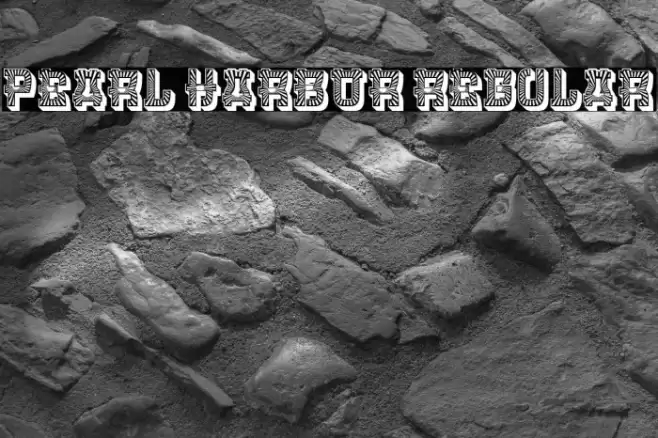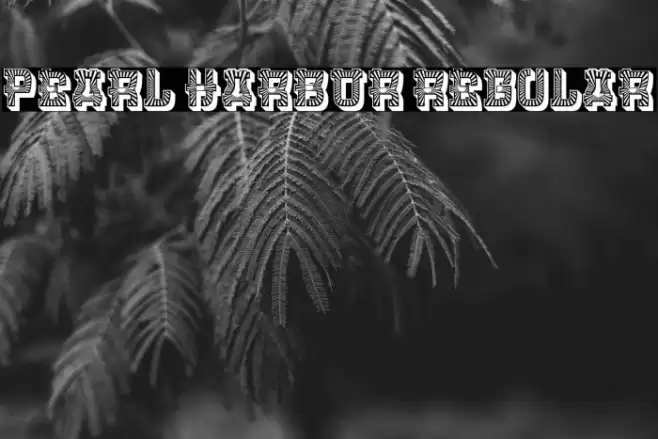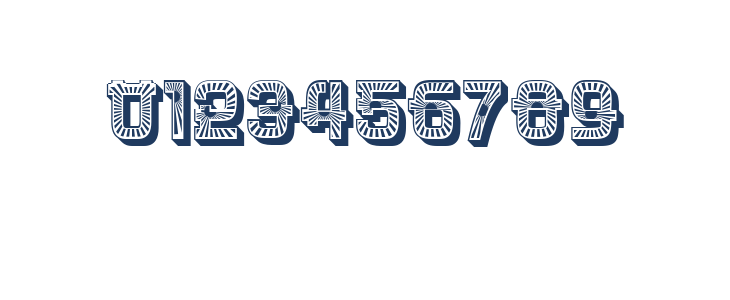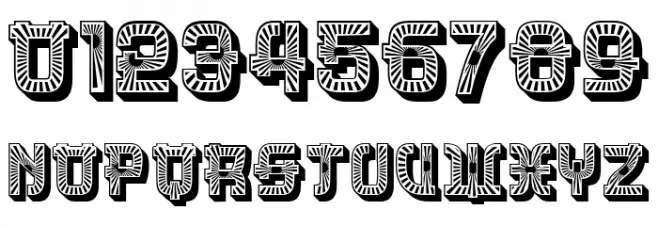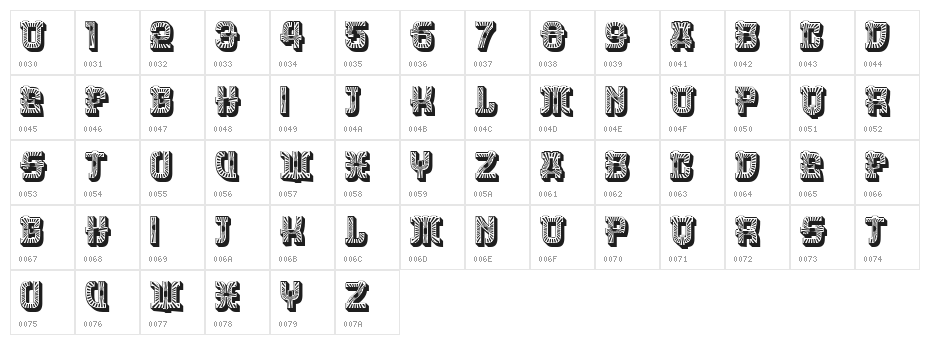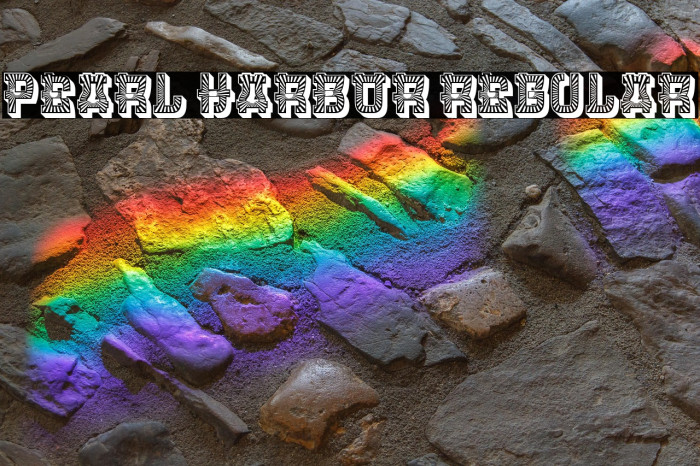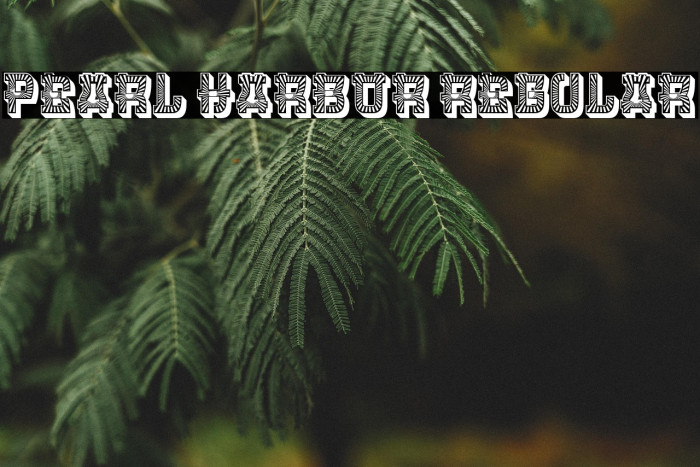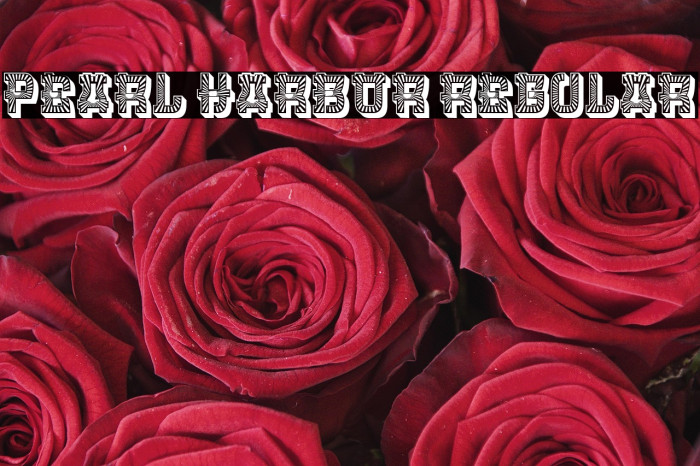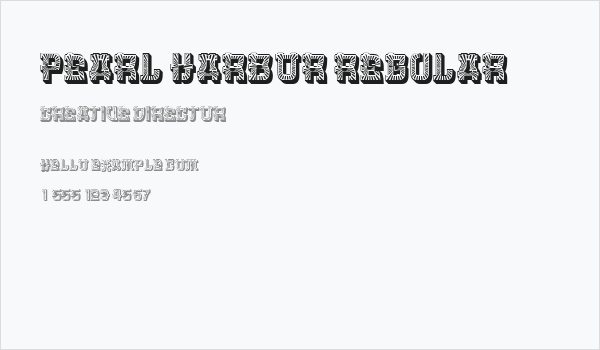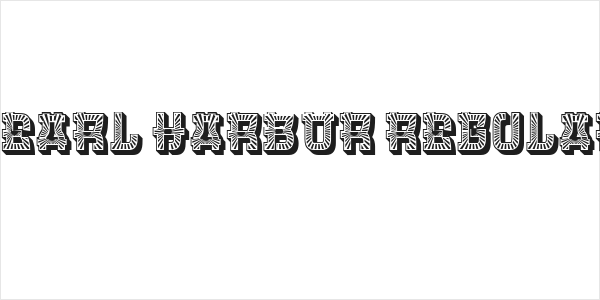
Pearl Harbor Regular Font
Pearl Harbor Regular Description
This font is a bold and decorative typeface characterized by its intricate patterns and three-dimensional shadow effects. Each character is designed with a unique combination of stripes and solid fills, creating a visually striking appearance. The uppercase and lowercase letters maintain a consistent style, with the numbers and special characters following suit. The font's boldness and detailed design make it stand out, ideal for projects that require a strong visual impact. Its playful yet structured form gives it a modern and artistic flair, suitable for creative and dynamic applications.
A bold, decorative font with intricate patterns and 3D shadow effects from Uncategorized fonts.
- Font: Pearl Harbor Regular
- Proposed Projects: Ideal for posters, headlines, branding, and any project needing a bold, artistic touch.
- Overall Style: Modern, Decorative